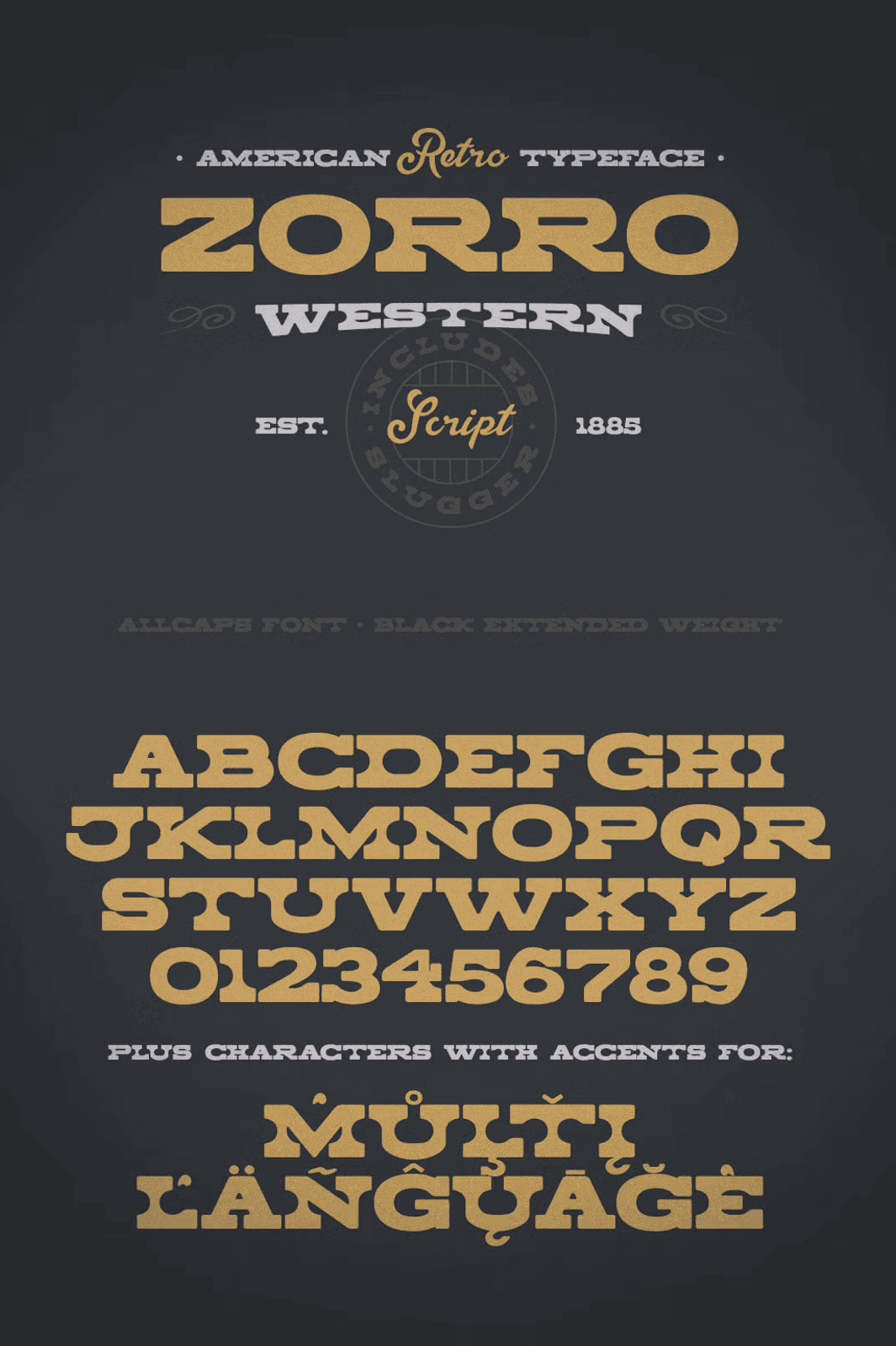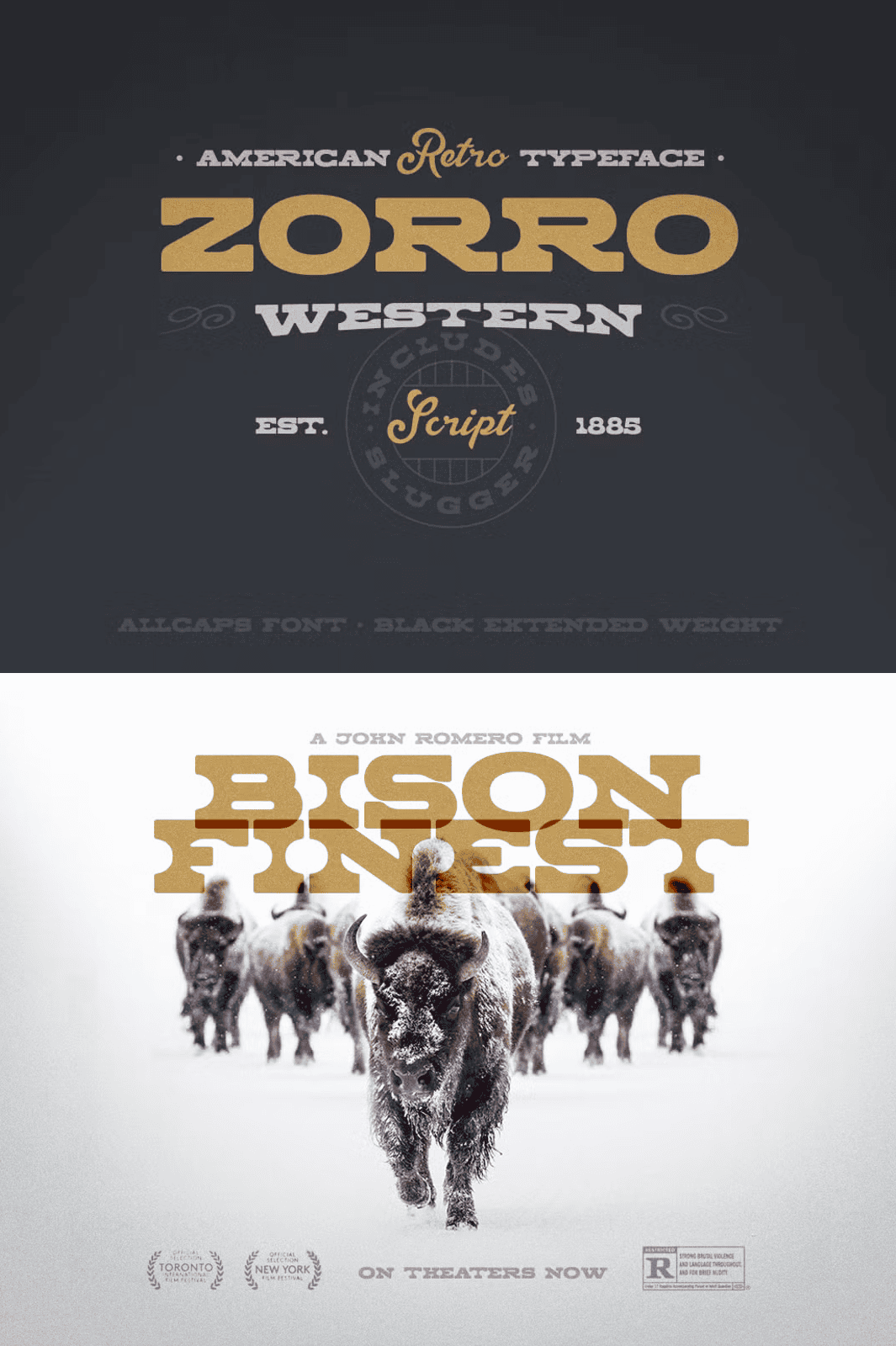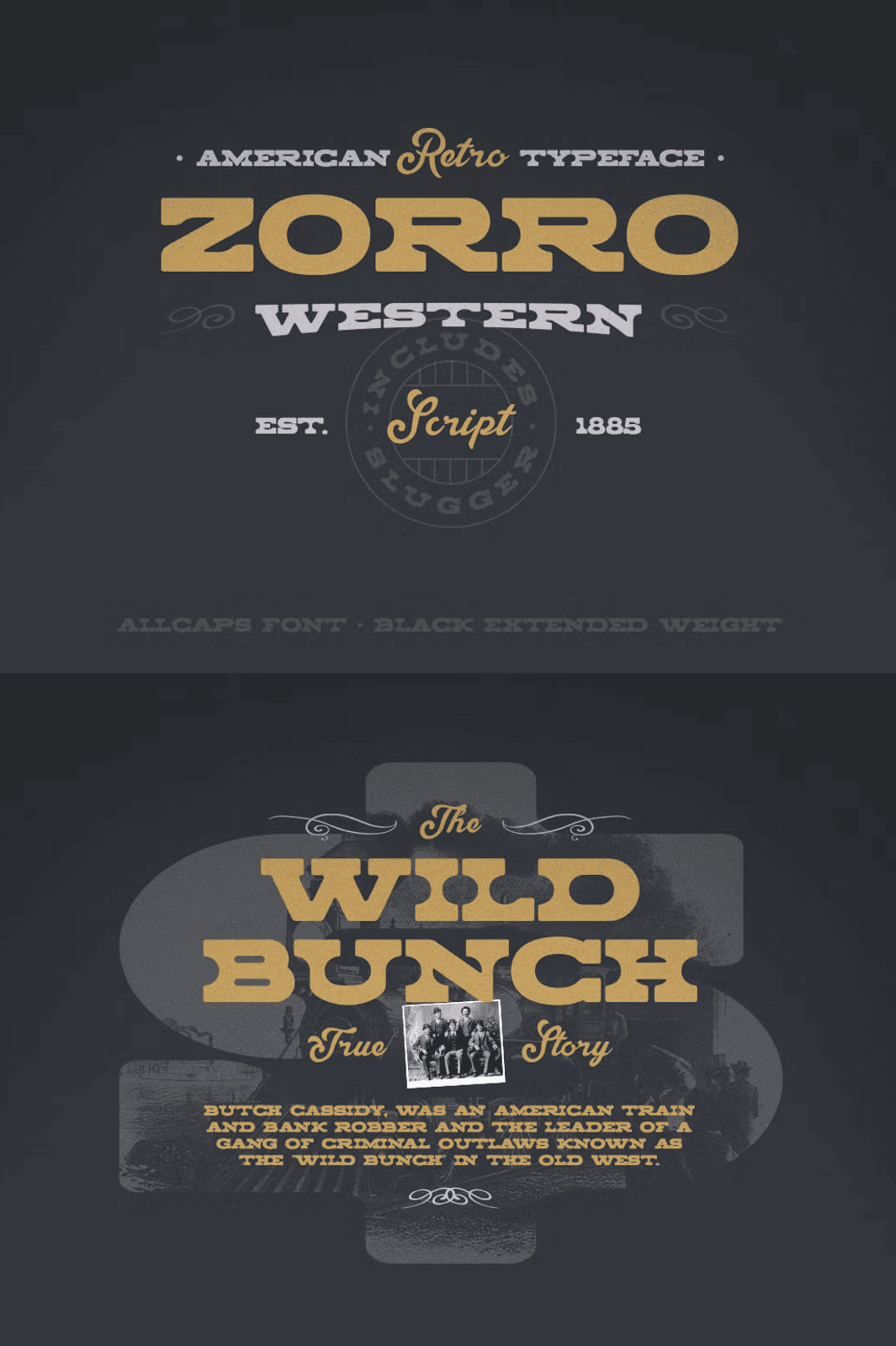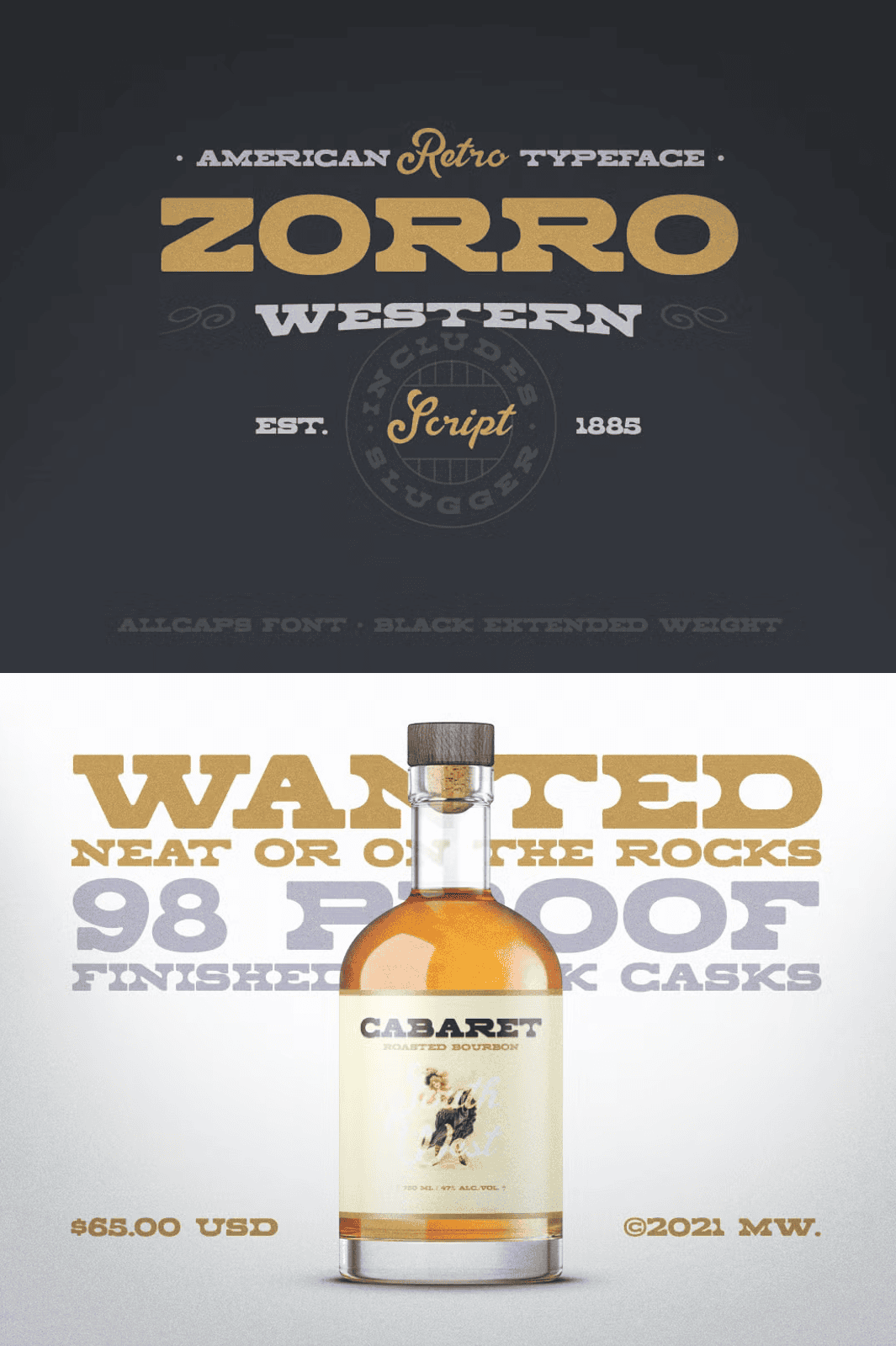
Step into the golden age of frontier legends with Zorro, an audacious American retro black extended typeface that redefines vintage Western design. Crafted for creators who crave boldness, authenticity, and timeless drama, Zorro brings the spirit of dusty towns, lawless trails, and legendary showdowns straight to your digital canvas. This all-caps only typeface is meticulously designed to evoke the atmosphere of a bygone era—when the law was drawn on horseback and justice echoed across the desert winds.
Bold Serifs, Tight Lines: The Essence of a Wild Frontier
Zorro combines the strength of aggressive serif flourishes with long, straight horizontal strokes and smooth, round corners, forging a distinctive visual rhythm that commands attention. The tight spacing between glyphs creates a dense, impactful presence—perfect for headlines, movie posters, signage, and brand identities that demand presence. Each letter is built with precision, balancing weight, symmetry, and character, ensuring your design feels both powerful and intentional.
With a total of 379 glyphs and full support for international characters, Zorro isn’t just visually striking—it’s functionally complete. It includes all standard punctuation, numerals, and multilingual symbols, allowing you to use it across diverse projects, from multilingual advertising to global branding campaigns. Whether you’re designing for a Western-themed event, a film poster, or a music album, Zorro delivers clarity, character, and authenticity in every stroke.
Complete the Look with the Complementary Slugger Script Font
The true power of Zorro lies in its ability to shine as part of a duo. This font is intentionally paired with a dynamic, handcrafted script—Slugger—that adds personality, fluidity, and contrast to the rigid structure of the main body. When used together, the combination creates a high-contrast, high-impact visual identity that captures the soul of classic Western storytelling.
Use Zorro for titles, strong messages, and declarations. Use Slugger for signatures, quotes, personal touches, or branding elements that need elegance and movement. Together, they form a cohesive typographic system that stands out in print, digital media, and animation.
Stop blending into the background. Stand out with a font that speaks of courage, legacy, and adventure. Zorro is more than a typeface—it’s a tool for storytelling. From branding for bars and apparel lines to game covers and film titles, this duo empowers you to build memorable, dramatic, and unforgettable visual experiences.